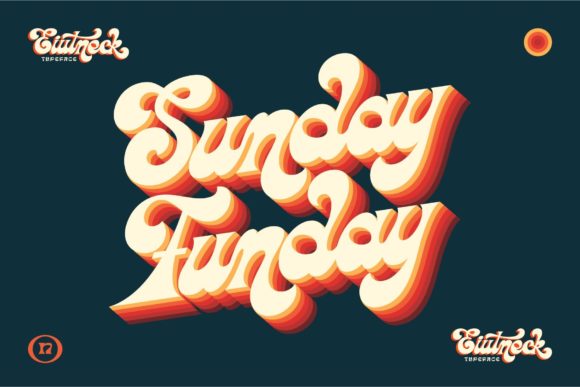
Introducing Eiutneck Script Font, your secret weapon for unforgettable headlines and logotype designs. Its captivating retro flair will cast a spell on your audience, leaving a lasting impression.
Eiutneck Script is the brainchild of the talented Ngene, who meticulously crafted each letter to exude strength, confidence, and a timeless elegance. Imagine your headlines adorned with this mesmerizing font, commanding attention and drawing readers into your captivating prose.
With Eiutneck Script, your logotypes will transcend the ordinary, radiating a vintage charm that evokes nostalgia and whispers tales of a bygone era. Its bold strokes and whimsical curves will transform your designs into works of art, leaving your audience smitten.
Picture your brand adorned with the distinctive allure of Eiutneck Script. Its versatility lends itself to a myriad of projects, from enchanting book covers to eye-catching posters and alluring social media graphics. Let Eiutneck Script be the brush that paints your brand's story, infusing it with a touch of magic that will captivate hearts and minds.
Whether you seek to evoke a sense of nostalgia or make a bold statement, Eiutneck Script is the font that will elevate your designs to new heights. Download it today and unleash the power of its enchanting allure. Your audience awaits the unforgettable impact that only Eiutneck Script can deliver.